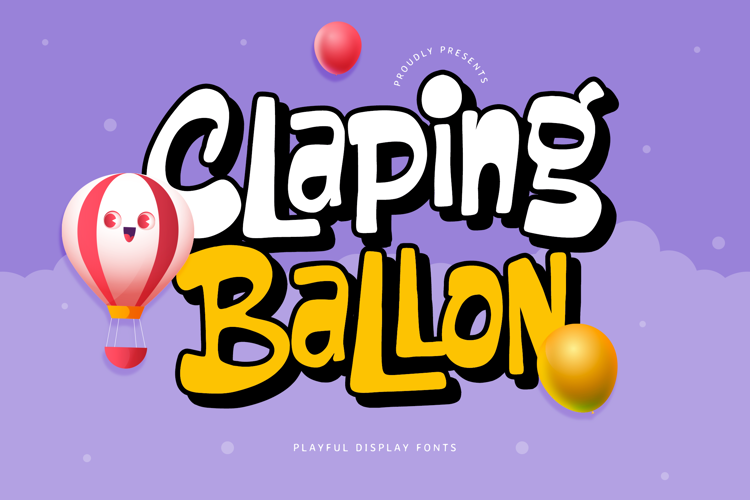
Claping Ballon Font
Claping Ballon is a playful display font with bold, rounded, and friendly letterforms. This fun cartoon font is perfect for children designs, party invitations, greeting cards, posters, kids branding, and cheerful typography projects.